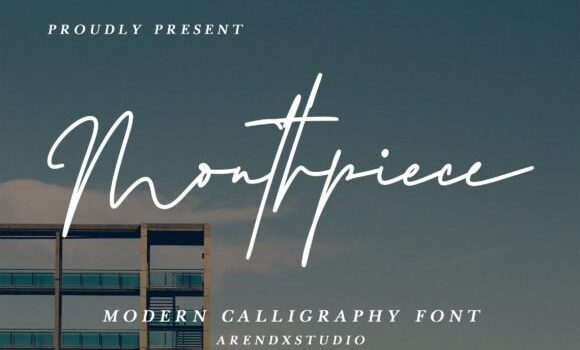
Mouthpiece Font – Free Download Introduction to Mouthpiece Font Mouthpiece is a modern calligraphy font with distinctive handwritten characters perfect for branding projects, logos, wedding designs, media posts, advertisements, product packaging, product designs, labels, photography, watermarks, invitations, and stationery. 📸